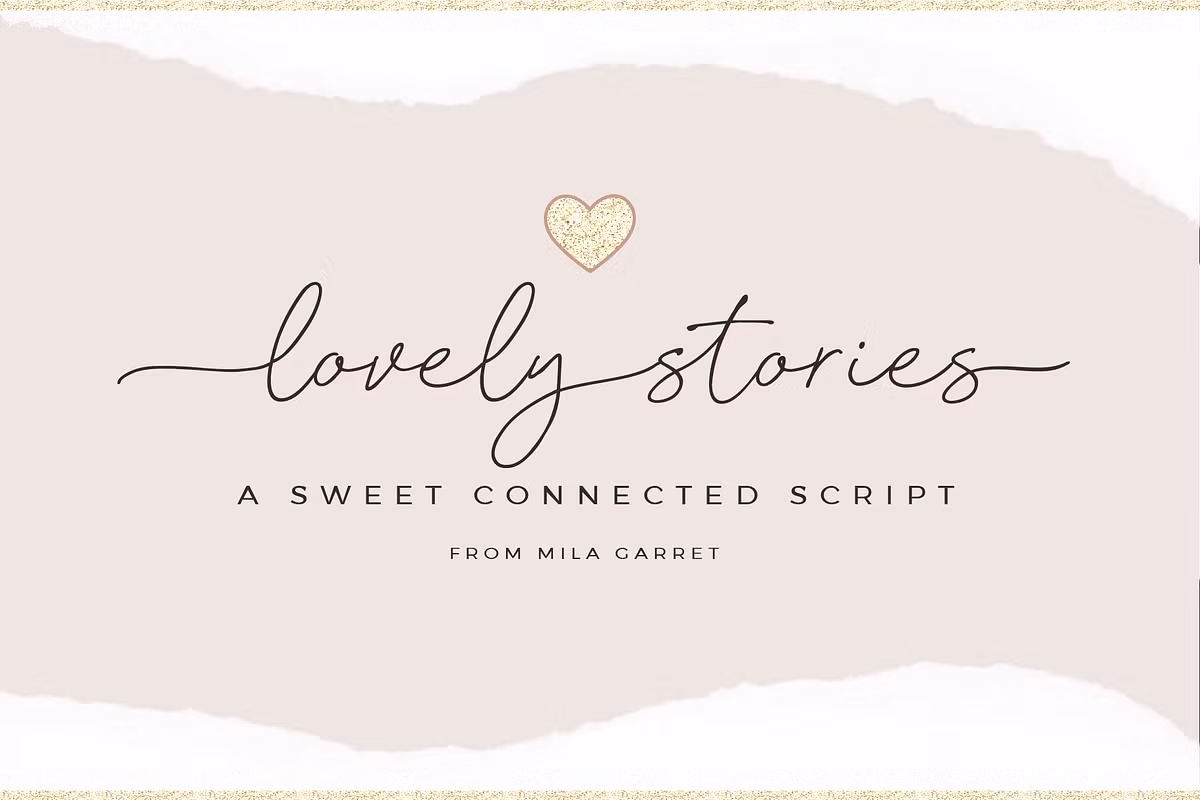
Lovely Stories Font Free Download is a charming and stylish script typeface that brings a soft, romantic, and feminine touch to your designs. With its elegant swashes, flowing curves, and handwritten beauty, Lovely Stories is perfect for wedding invitations, branding, greeting cards, product packaging, and social media posts that need a graceful, personal flair.
Designed to mimic natural handwriting with a modern twist, Lovely Stories Font Free Download captures emotion and sophistication in every letter. Its playful yet polished look makes it ideal for logos, quotes, and any project that needs to stand out with elegance and warmth.
Lovely Stories pairs beautifully with minimalist serif or sans-serif fonts, allowing you to create balanced, eye-catching typographic combinations for digital and print designs alike.